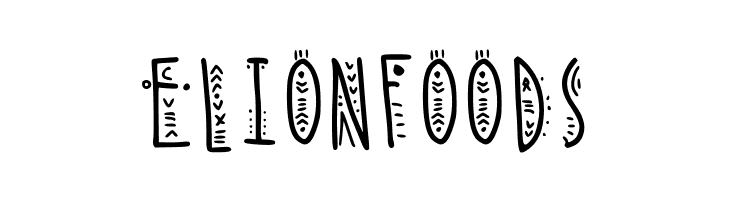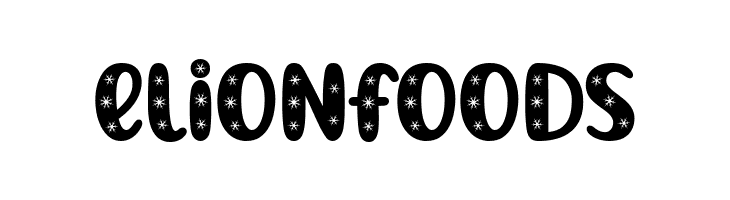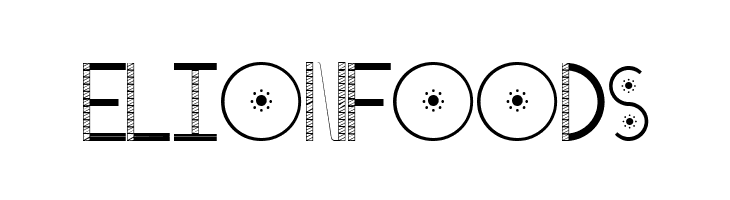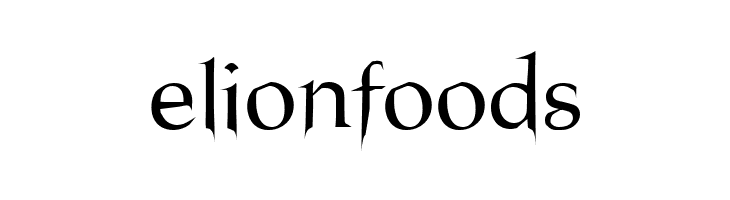
A playful font with characters inside star-shaped outlines, perfect for whimsical designs.
A decorative, artistic font with intricate patterns and embellishments.
A decorative, angular font with sharp, geometric shapes and high contrast.
A bold, decorative font with sparkling star patterns in each character.
A bold, ninja-themed decorative font with dynamic and edgy elements.
An ornate, gothic-style font with intricate thorn-like detailing.
A bold, decorative font with whimsical patterns and a hand-drawn feel.
A whimsical, decorative font with intricate patterns and playful designs.
A whimsical, Nordic-inspired decorative font with intricate patterns.
A bold, decorative font with intricate patterns and whimsical style.
A modern, geometric font with decorative patterns and high contrast.
A playful, hand-drawn font with characters on note cards hanging on a line.
A bold, dotted font with a geometric and playful style.